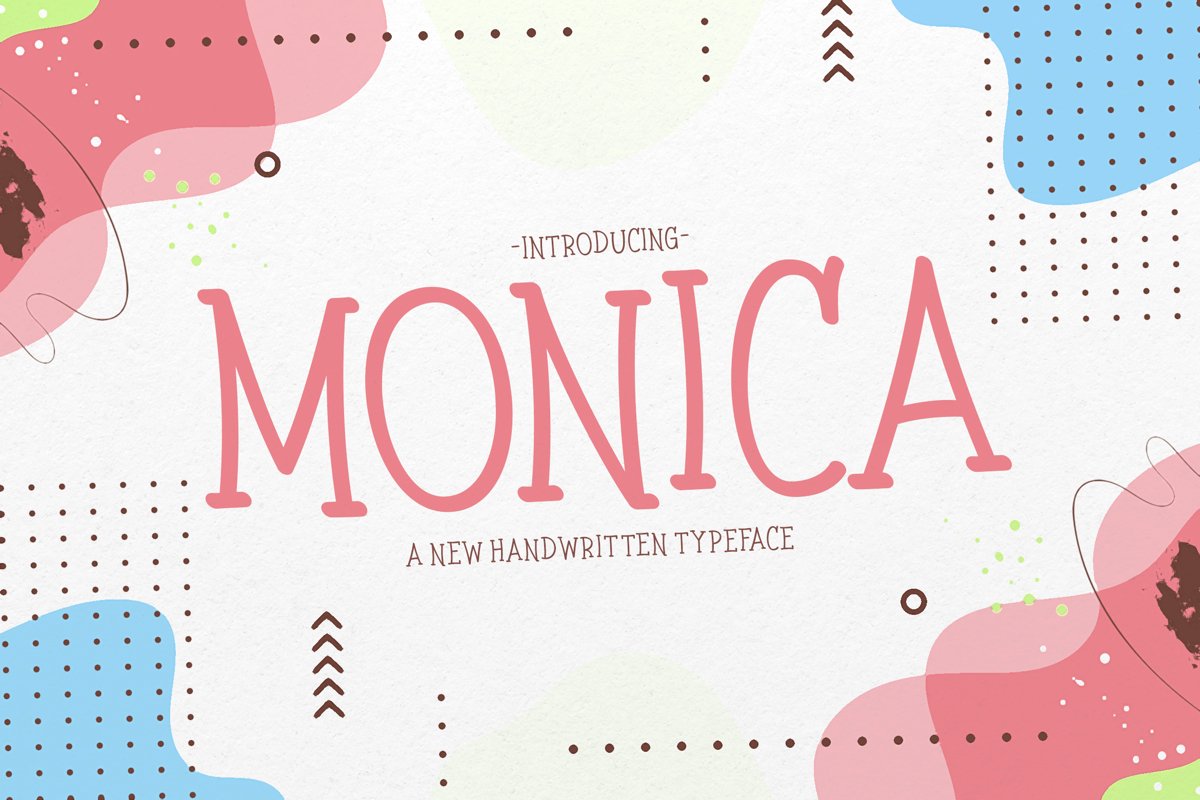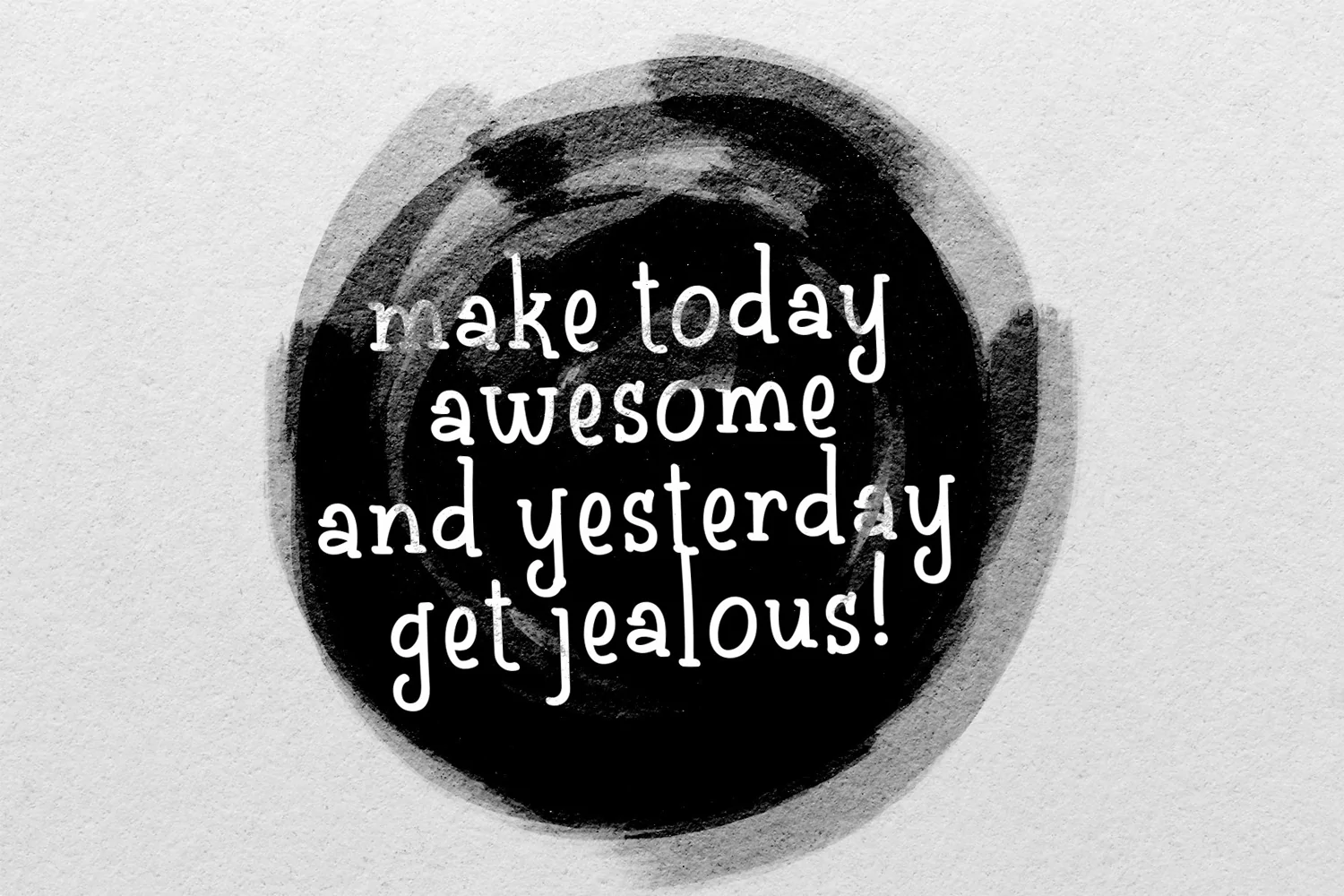
Monica is a girly hand written typeface. Perfect for display, poster, quotes, crafting needs, florist needs, wedding needs, business card, signature, packaging, merchandise, branding, logo, logotype, header, tittle, and many more.